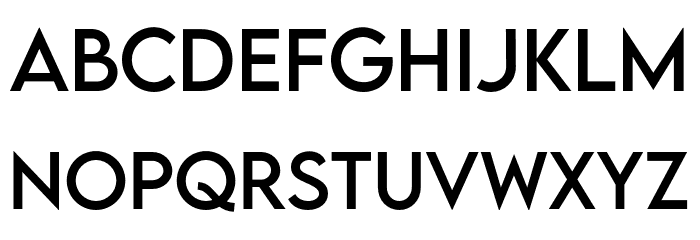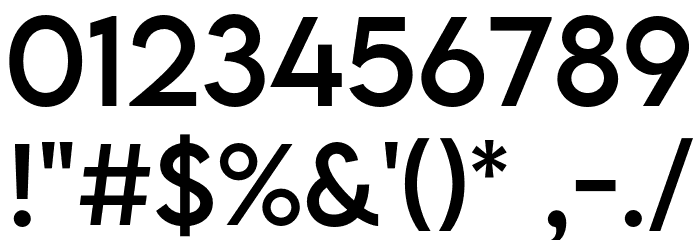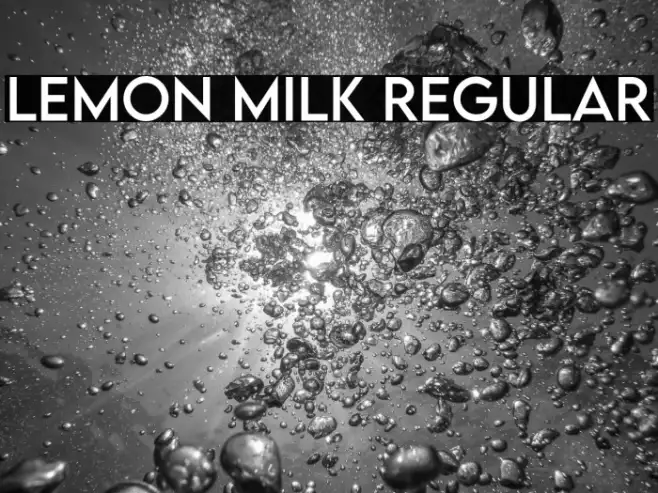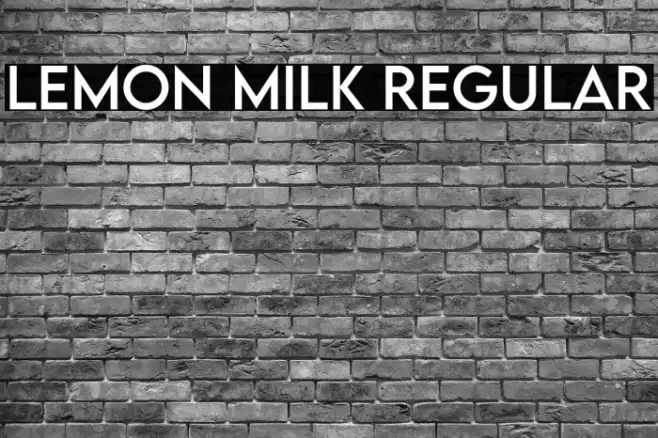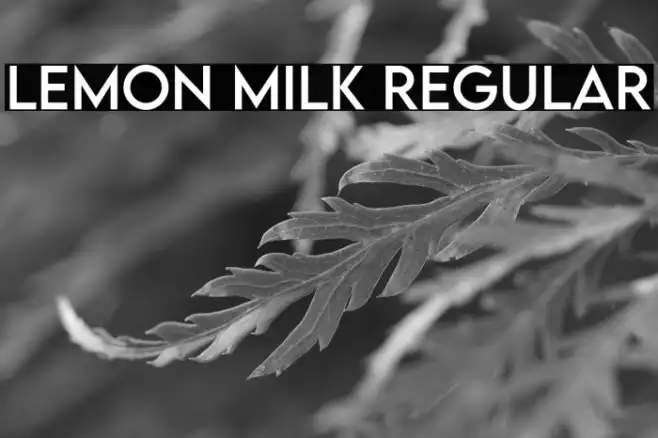
LEMON MILK Regular Font
This font features a clean and modern sans-serif style with geometric influences. It presents a bold and assertive appearance, characterized by uniform stroke widths and a balanced structure. The uppercase letters are particularly striking, with sharp angles and a strong presence, making it ideal for attention-grabbing headlines. The lowercase letters maintain a consistent style, ensuring readability and cohesion. The numerals are clear and straightforward, complementing the overall design. Special characters are well-integrated, maintaining the font's sleek and contemporary aesthetic.
A bold, modern sans-serif font with geometric influences and strong visual impact.
- Proposed Projects: Ideal for branding, advertising, headlines, posters, and digital media where a modern and bold statement is desired.
- Use Case: Headlines, Logos, Branding